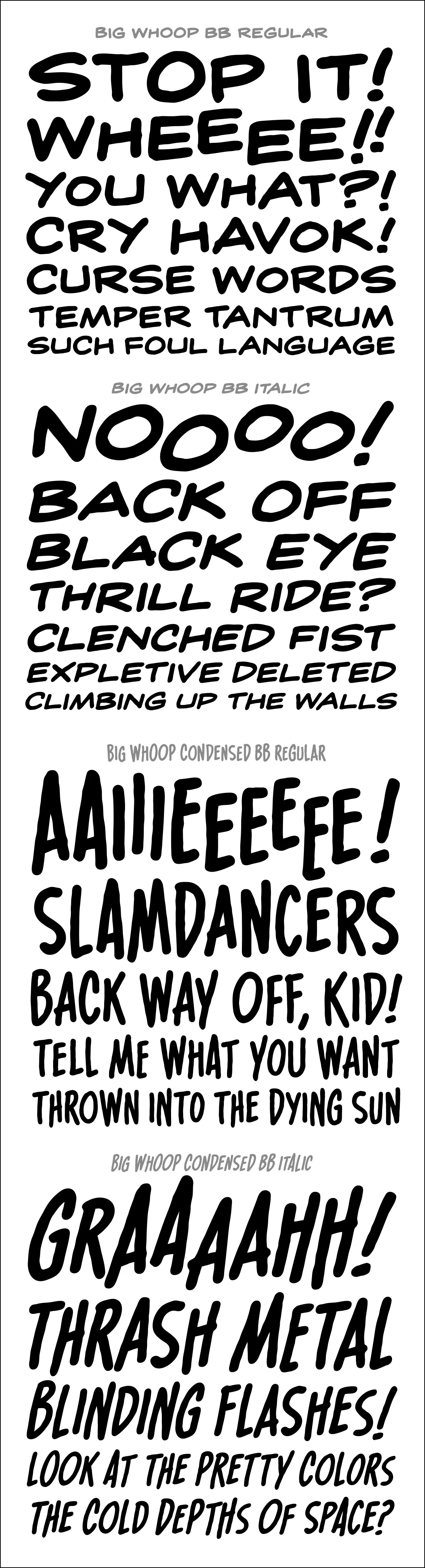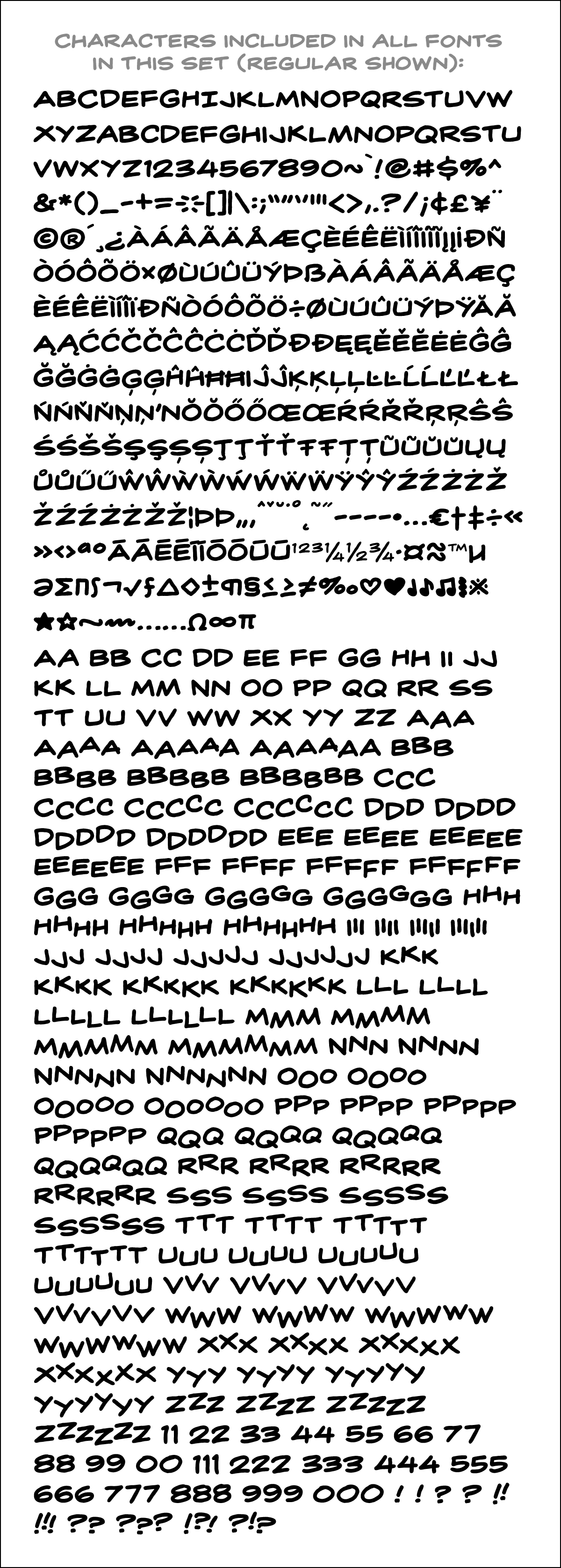
Big Whoop
- Regular, Italic, Condensed, Condensed Italic
- Opentype Autoligatures
- Barred-I Correction
- Manga Glyphs
- Bouncy Baselines
- Six versions of every letter
- Three versions of numbers & punctuation